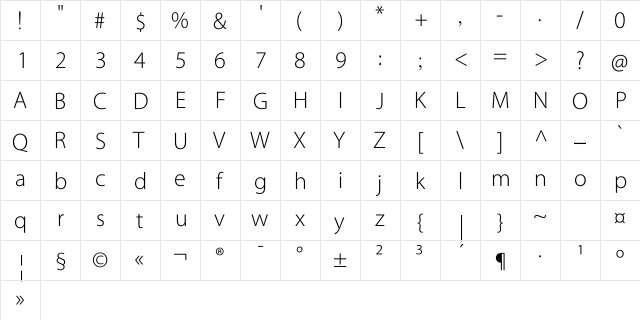
BPG Afxazeti Ovaluri Light
| Foundry | BPG InfoTech |
| Designer | BPG-InfoTech |
Design Context for BPG Afxazeti Ovaluri Typeface
BPG Afxazeti Ovaluri takes a measured approach to typography — its balanced proportions and neutral character make it a reliable workhorse for both digital and print work. Its slender proportions lend an understated elegance to any composition.
Pro Tip: Pair BPG Afxazeti Ovaluri with a font of contrasting weight or personality to build a more expressive typographic hierarchy.